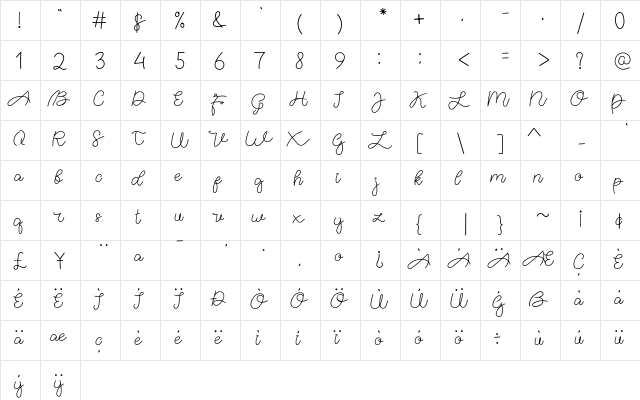
Agatta Script Regular
| Designer | Abdul Mimar Hidayat |
Design Context for Agatta Script Typeface
Agatta Script flows with the natural rhythm of handwritten lettering, making it ideal for designs that call for warmth and personal expression.
Font Pairing: Combine Agatta Script with a simple geometric sans for maximum contrast — the tension between flowing curves and clean structure is a classic typographic pairing.
Pro Tip: Use Agatta Script for short runs of text — names, titles, or taglines. Extended body copy in script faces tires the eye quickly.